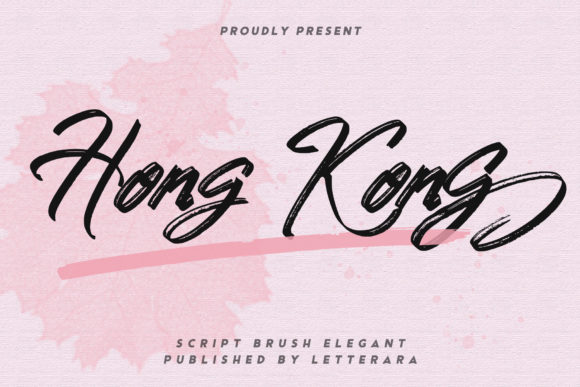
Journey through the streets of Hong Kong with our enchanting script font, capturing the essence of this vibrant city's energy and spirit. Allow your designs to dance with the rhythm of this font, meticulously crafted to exude elegance and power. Immerse yourself in the captivating allure of Hong Kong font, a handwritten masterpiece that embodies authenticity and uniqueness. Let your words flow effortlessly, leaving an unforgettable mark on your audience.
Step into a world of creativity, where your designs take center stage. With Hong Kong font, you'll discover a treasure trove of possibilities, unlocking endless design horizons. Elevate your branding, social media presence, and digital projects with its alluring charm. Embrace the beauty of Hong Kong font, a font that speaks volumes, igniting imaginations and leaving a lasting impression.
Indulge in the timeless beauty of Hong Kong font, a testament to the enduring power of handwritten artistry. Its delicate strokes and enchanting curves evoke a sense of nostalgia, transporting you to a bygone era of romance and elegance. Whether you're crafting wedding invitations, creating personalized logos, or designing captivating posters, Hong Kong font will be your steadfast companion, adding a touch of sophistication and charm to every project.